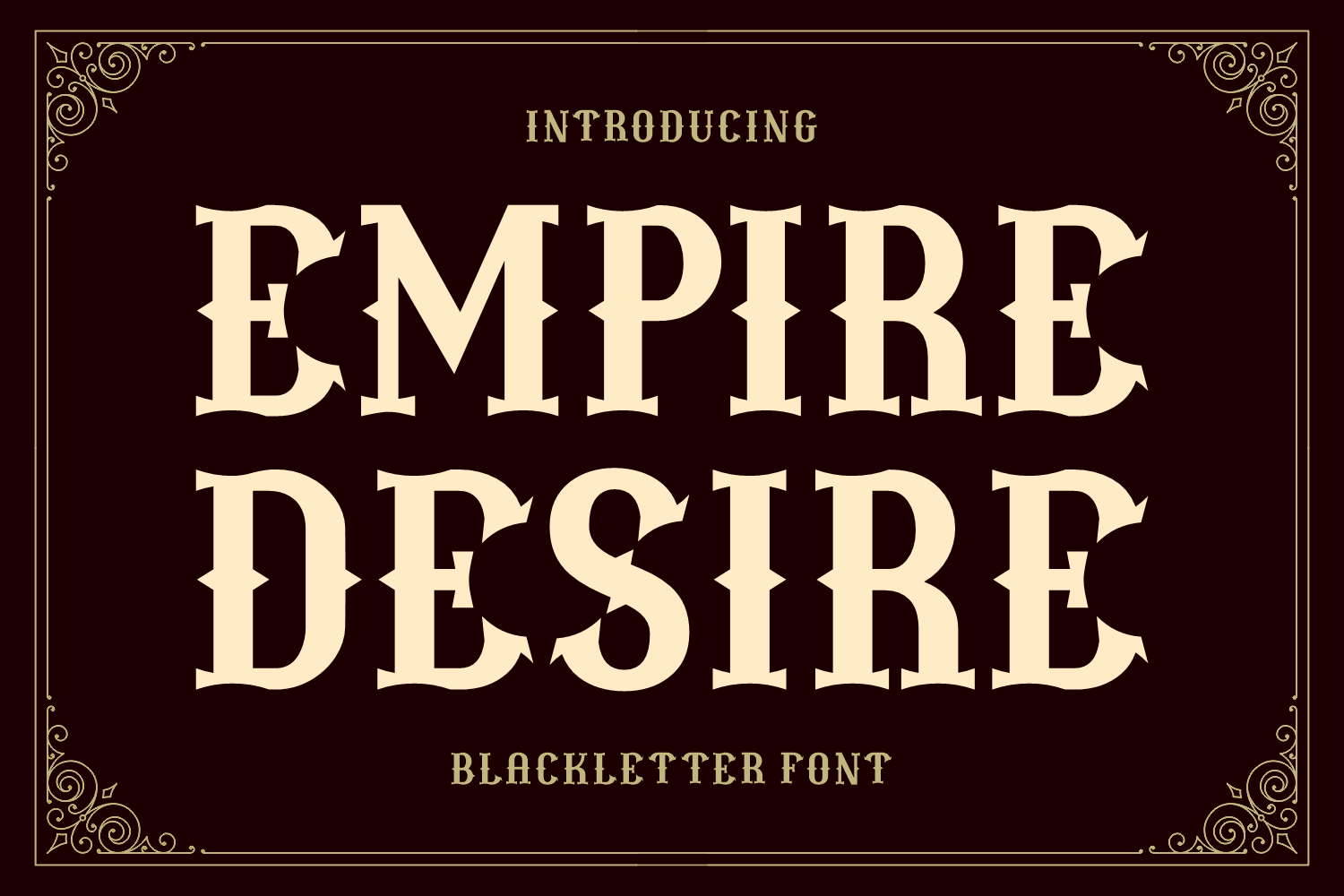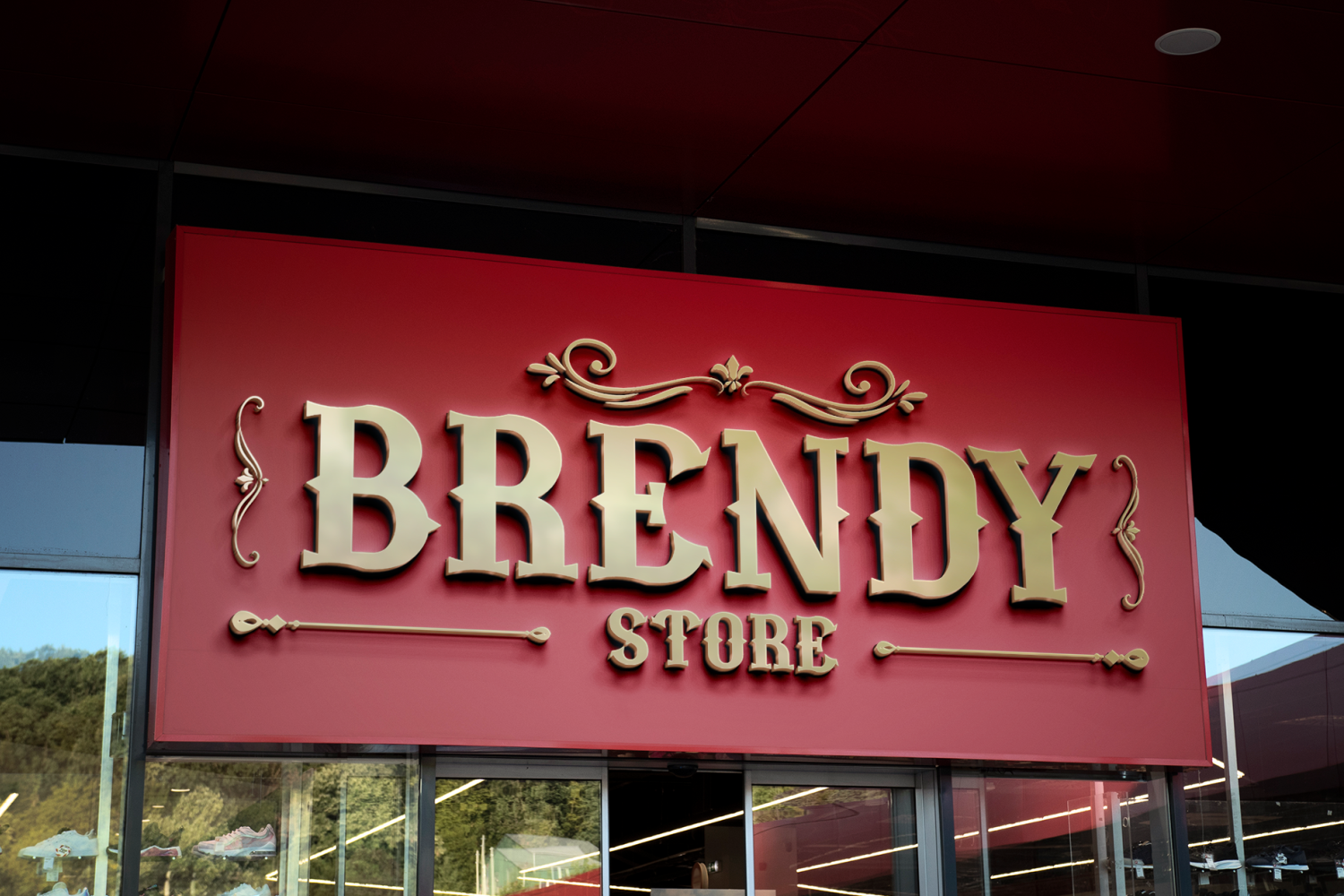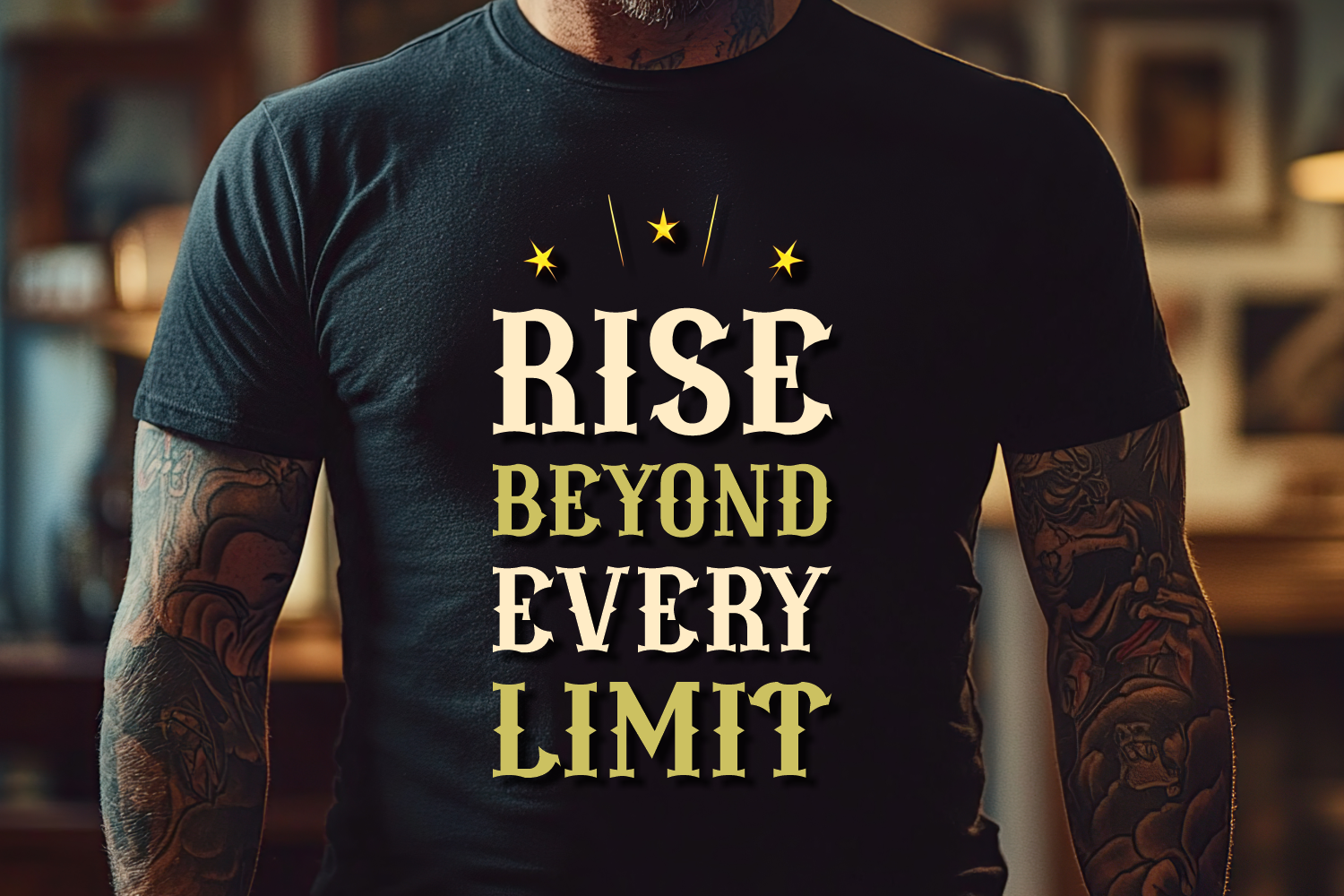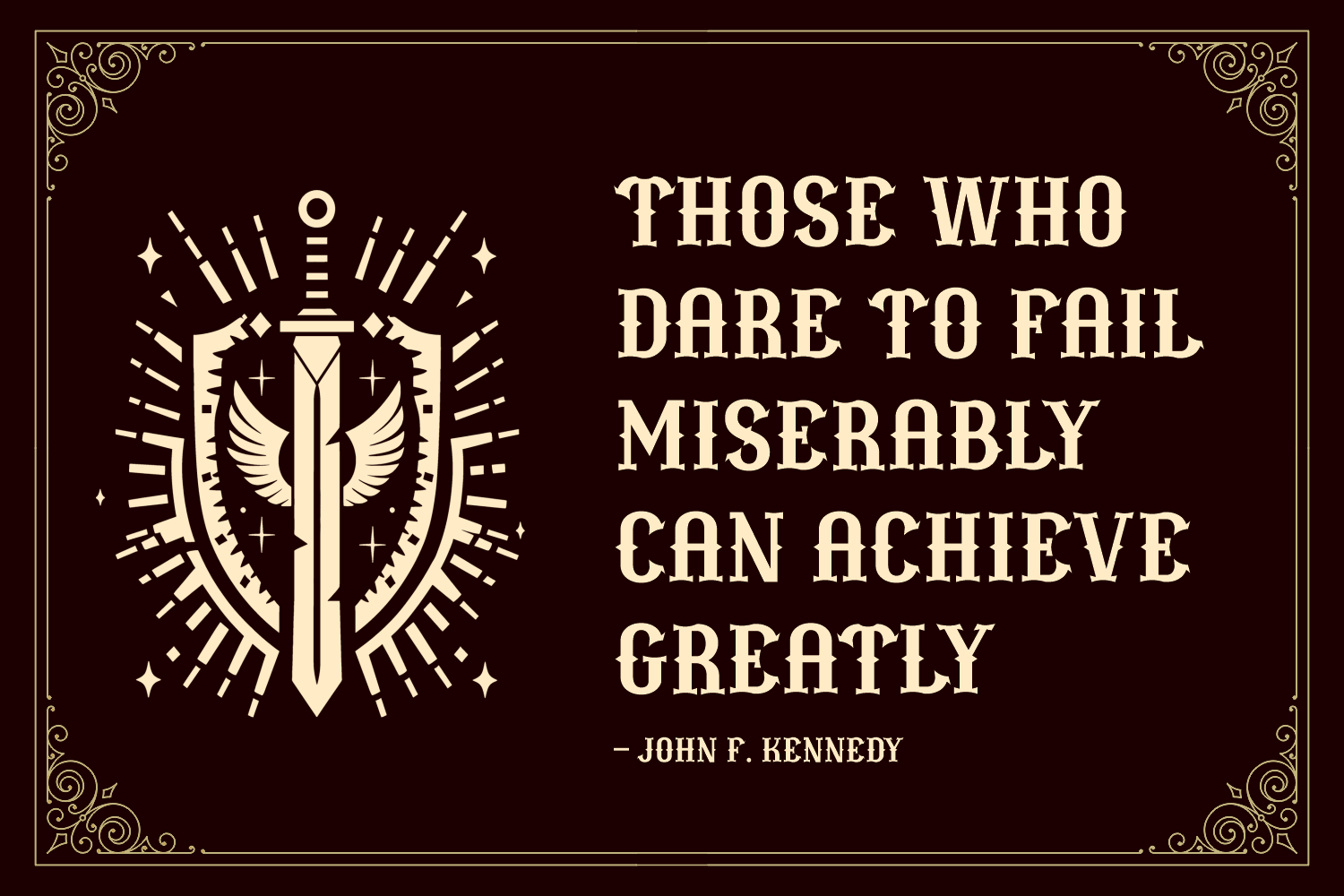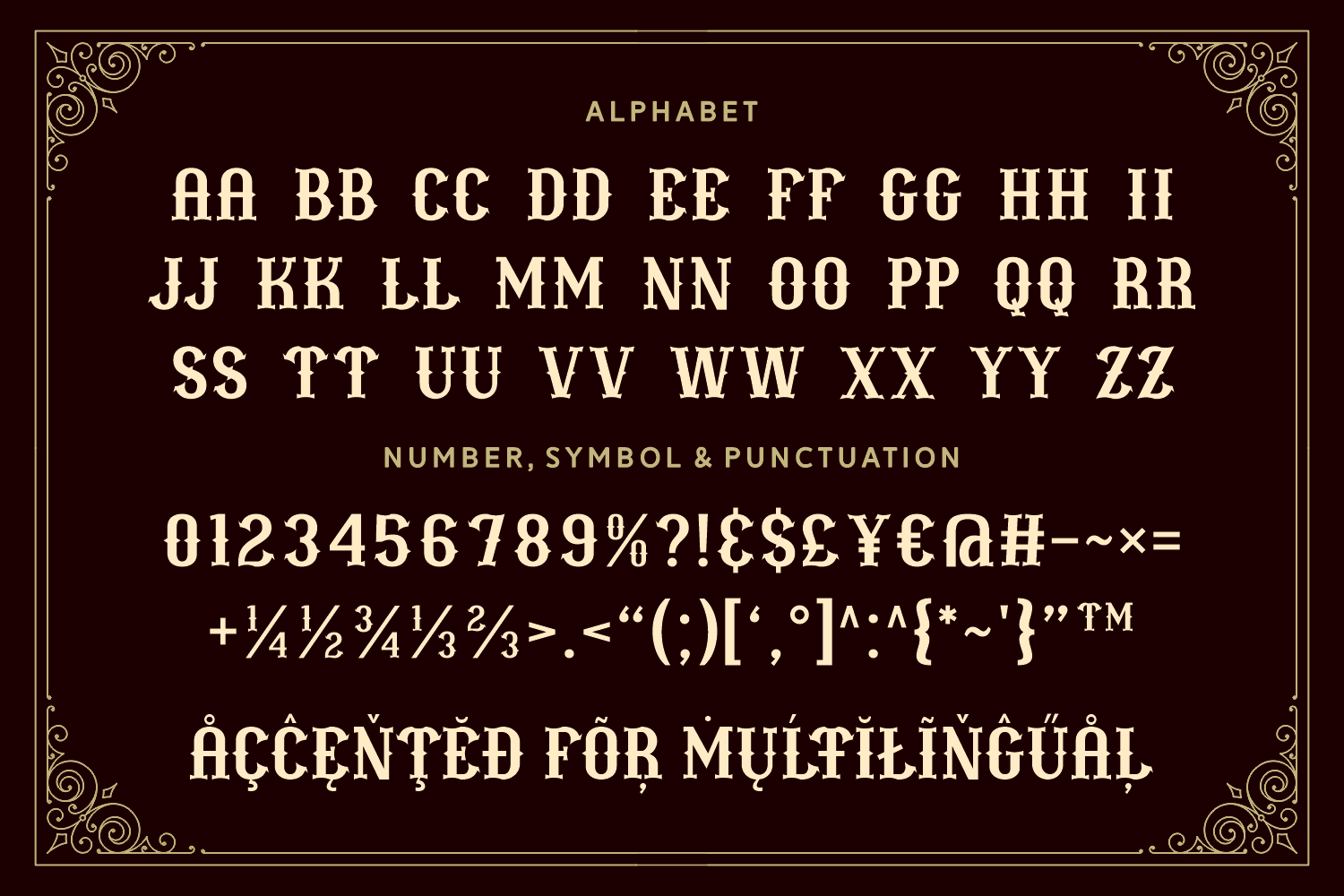
Empire Desire is a bold and regal blackletter font with sharp corners and high-contrast strokes. It’s perfect for titles that demand presence—like fantasy books, luxury logos, or medieval-themed projects. Its ornate yet readable design brings an air of royalty and strength.